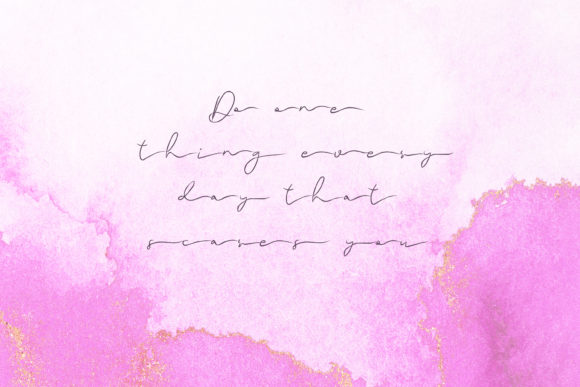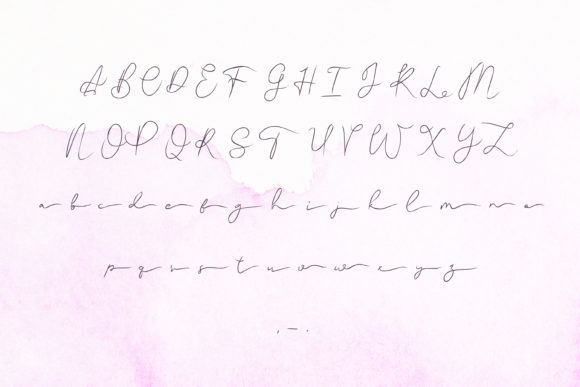
Podpisane Font
About Podpisane Font
Podpisane is a beautiful script font. This is a beautiful combination of timeless elegance and authentic calligraphy. Get inspired by its authentic feel and use it to create gorgeous wedding invitations, beautiful stationary art, eye-catching social media posts, and cute greeting cards.